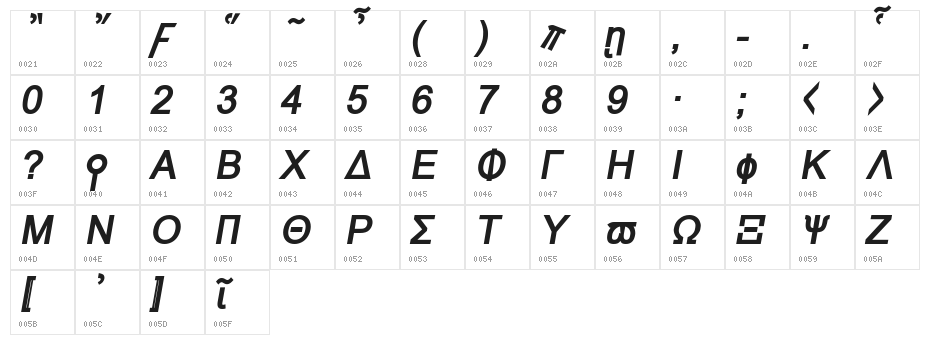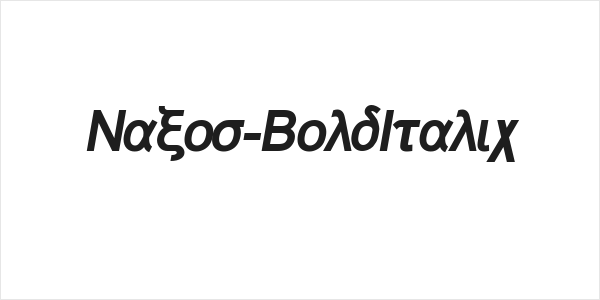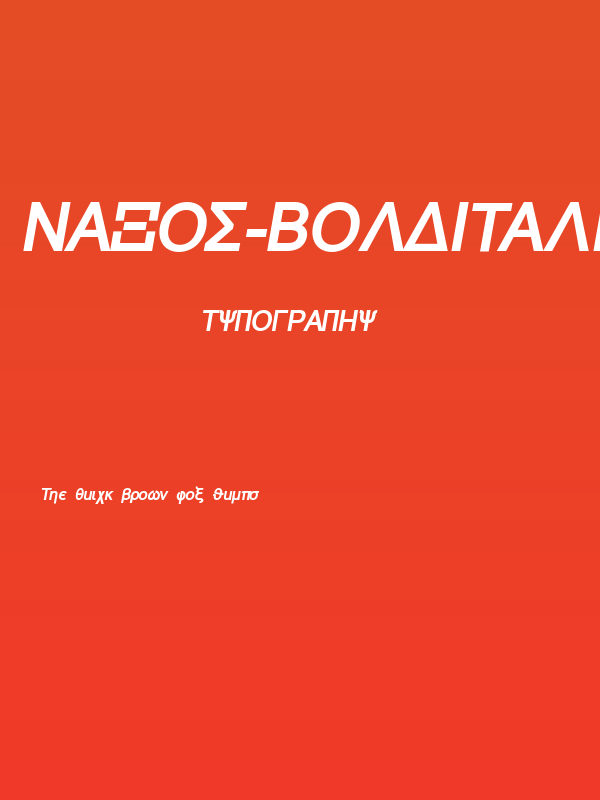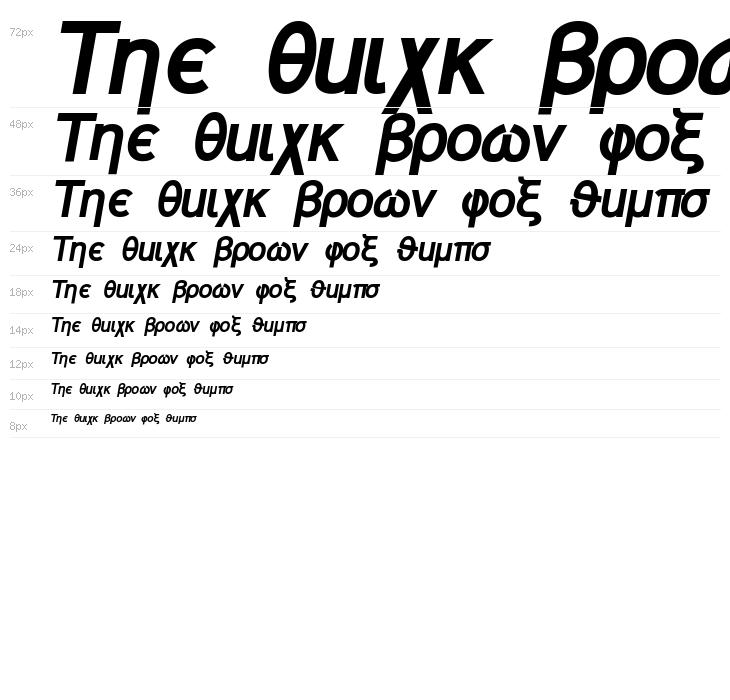
Naxos-BoldItalic Font
Naxos-BoldItalic Description
This font presents a bold and italicized style with a modern and dynamic appearance. The characters are slightly slanted, giving a sense of motion and energy. The strokes are thick and consistent, providing a strong visual impact. The font includes a full set of uppercase and lowercase Greek letters, numerals, and a selection of special characters. The design is clean and legible, making it suitable for various applications where a bold statement is needed.